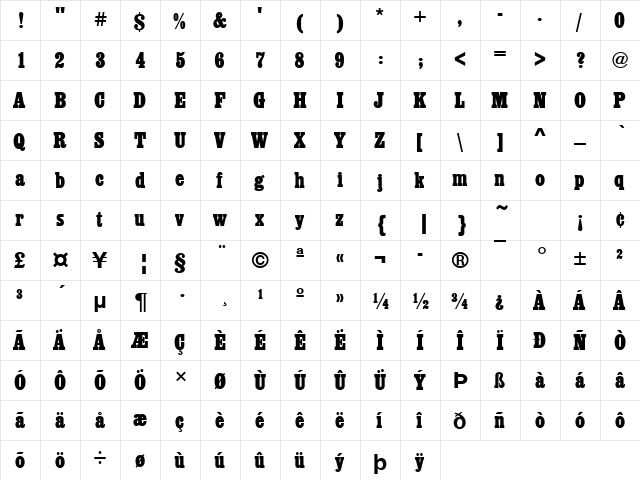
Egyptienne Becker Bold Cond Regular Font Preview
Design Context for Egyptienne Becker Bold Cond Typeface
Egyptienne Becker Bold Cond offers clean, dependable letterforms without strong stylistic allegiance, making it a practical choice for designers who need flexibility. The heavy weight commands attention and anchors typographic hierarchies. Its narrow stance lets it pack a punch even in space-constrained designs.
Pro Tip: Use Egyptienne Becker Bold Cond in both headline and body roles to test its range before committing to a single application.